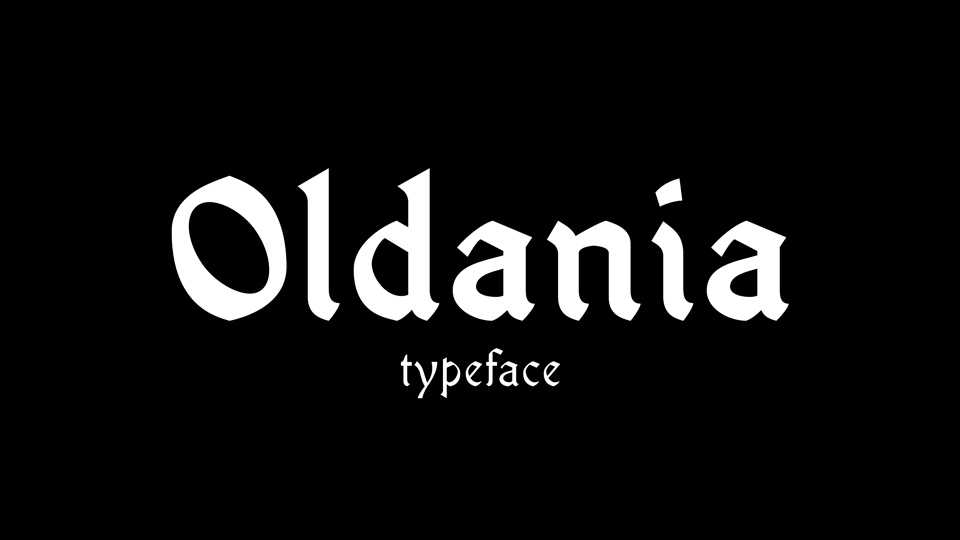
Download Oldania font family, a modern Gothic typeface that can be used for both text and titling. It is also clear and readable to ensure easy reading. It is primarily reserved for old-style publications or rendering effects in a general presentation for example.
Designer: Arkandis Digital Foundry